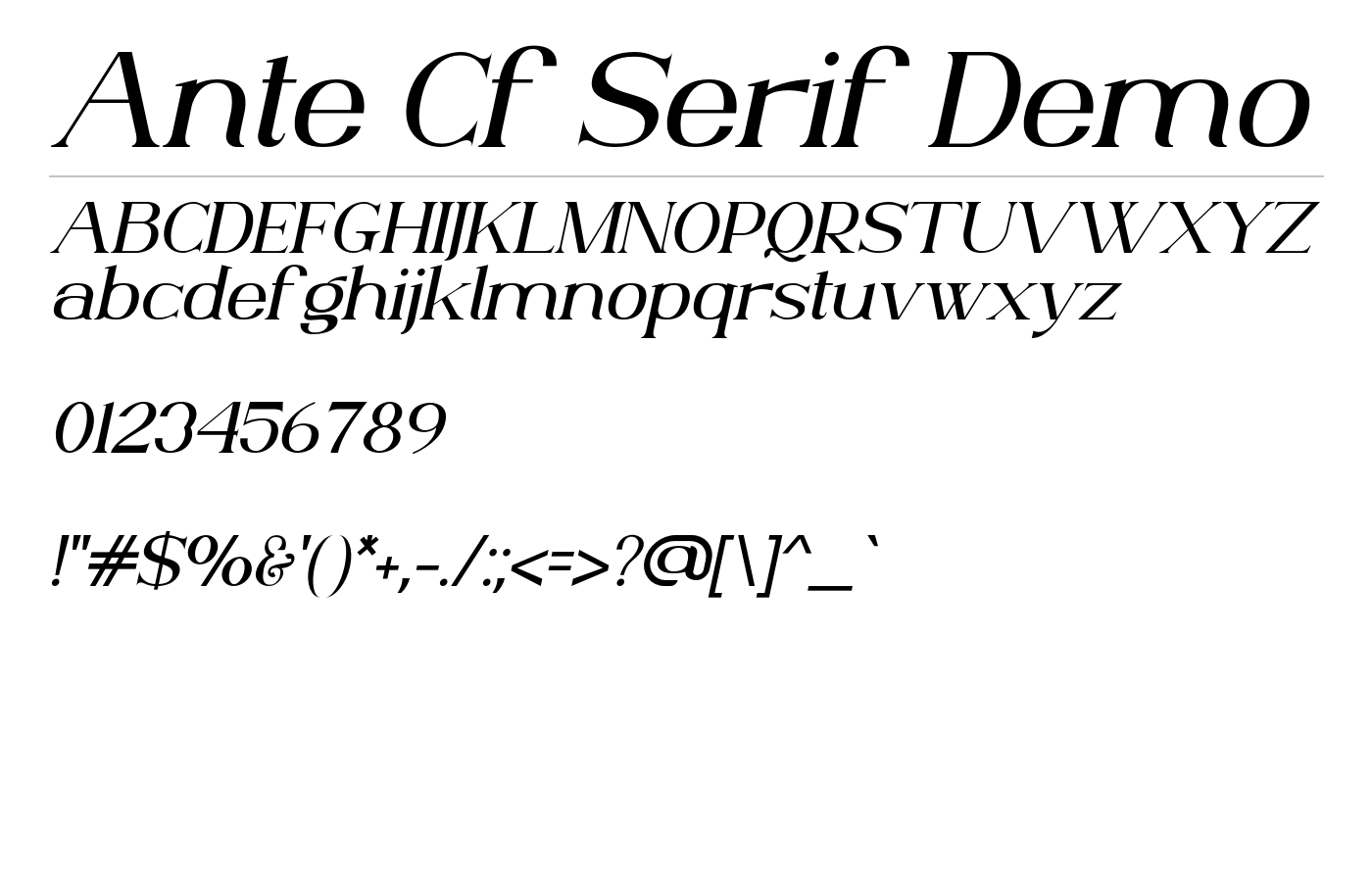
Ante Cf Serif Demo is an elegant, high-contrast serif font with a refined Didone style, showcasing thin, unbracketed serifs and a graceful italic angle. Its slender letterforms and distinct stroke contrast create a sophisticated and classic feel, making it ideal for luxury branding, editorial headlines, and fashion-related design where a sense of timeless refinement is desired. This font’s stylish appearance enhances upscale projects that require a modern yet traditional touch.
Ante Cf Serif Demo Font
About Ante Cf Serif Demo Font
| Font family | Ante Cf Serif Demo Font |